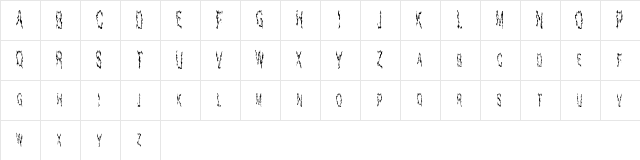
Complete Real Horror Show Regular glyph index. Displaying only characters natively supported by Real Horror Show Regular font.
Real Horror Show carries an unsettling edge - its distorted letterforms are built to unsettle, perfectly suited to horror, Halloween, and dark creative work.
Font Pairing: Pair with a clean neutral sans-serif for body copy to let Real Horror Show's character lead without overwhelming the composition.
Pro Tip: Use Real Horror Show at larger display sizes for maximum impact. Consider generous tracking to let the disturbing character of each letterform breathe.